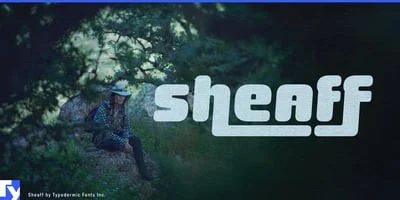
Sheaff Font
Sheaff Font is perfect for agricultural design projects including farming equipment companies, grain storage facilities, agricultural cooperatives, harvest festival promotions, rural community centers, farm supply stores, agricultural education programs, and countryside heritage campaigns. This rustic typeface works perfectly for wheat farming operations, grain mills, agricultural machinery dealers, rural banking institutions, and projects that celebrate the hardworking spirit and agricultural traditions of farming communities.
What makes Sheaff Font exciting is its authentic agricultural character that perfectly captures the essence of grain harvesting and rural farming heritage. The font features sturdy letterforms with wheat-inspired styling that reflects the seasonal rhythms and agricultural abundance of farming life. Its rustic design elements embody the spirit of harvest traditions and rural craftsmanship, making it perfect for projects that need to convey authenticity, abundance, and connection to agricultural heritage. The carefully crafted harvest-inspired details create an atmosphere of rural sophistication and agricultural authenticity.
Sheaff Font comes in multiple family variations including rustic, harvest, agricultural, and traditional styles. Each weight maintains the distinctive farming character while offering different levels of rural intensity and agricultural presence. The font family includes harvest alternates, grain ligatures, and farming variations that provide designers with comprehensive options for creating truly authentic and agriculturally inspired typographic compositions that celebrate rural excellence.
Whether you're designing agricultural branding, creating farming marketing materials, or developing rural promotional graphics, Sheaff Font provides the perfect typographic foundation for projects that celebrate agricultural excellence and rural sophistication. This remarkable typeface transforms ordinary text into compelling expressions of farming wisdom and agricultural heritage. Download this rustic font today and harvest your design projects with the agricultural authenticity and rural charm that captures the essential spirit of farming traditions and grain harvesting excellence.